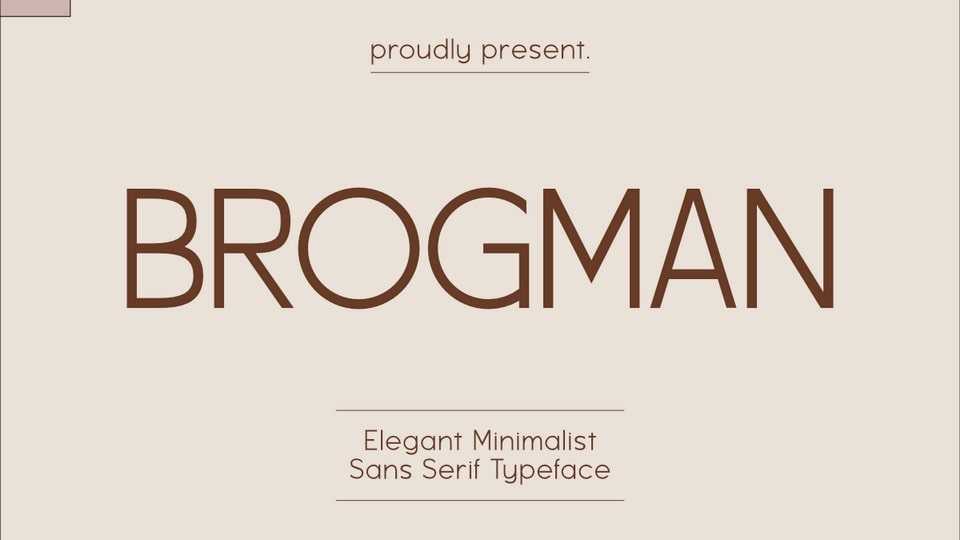
Download Brogman font, an elegant geometric sans serif font inspired by simple minimalist style typography. Brogman is a perfect choice for any creative endeavor, chic, lifestyle design.
Designer: Masyafi Studio